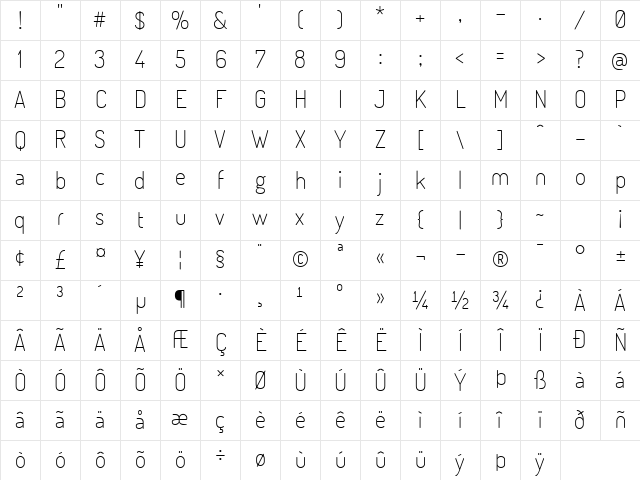
Terminal Dosis Light Free Font
Terminal Dosis Light
Foundry: EdgarTolentino, PabloImpallari, IginoMarini
Designer: EdgarTolentino, PabloImpallari, IginoMarini
Terminal Dosis Family
Design Context for Terminal Dosis
Terminal Dosis is a composed and adaptable typeface that performs quietly and consistently across a wide range of design contexts. Its slender proportions lend an understated elegance to any composition.